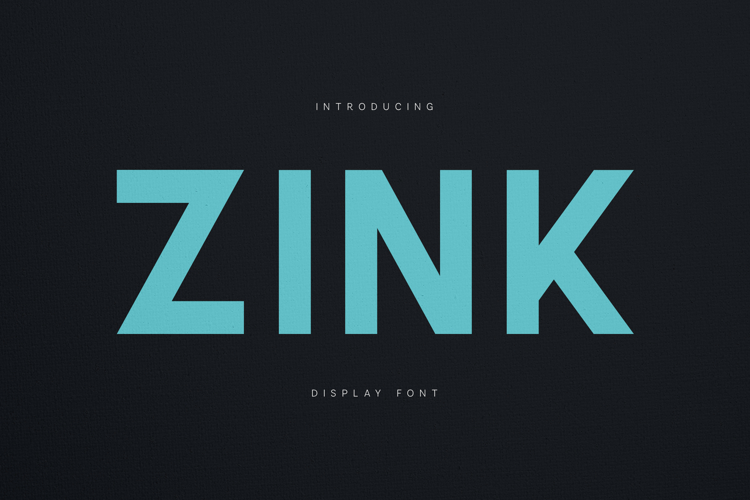
Zink Modern Geometric Display Font
Zink is a bold modern display typeface designed with clean geometry and strong visual clarity.
Built with balanced proportions and sharp construction, Zink delivers a confident typographic voice that works perfectly in contemporary branding, posters, and digital interfaces. The letterforms combine modern minimalism with industrial strength, creating a typeface that feels both functional and expressive.
Its structured design and uniform stroke weight make Zink highly legible even at large scales, while the distinctive shapes give it a strong visual identity ideal for impactful headlines and modern design systems.
With extensive multilingual support and a full character set, Zink is ready for global design projects where clarity and modern aesthetics are essential.
• Geometric display style
• Clean modern construction